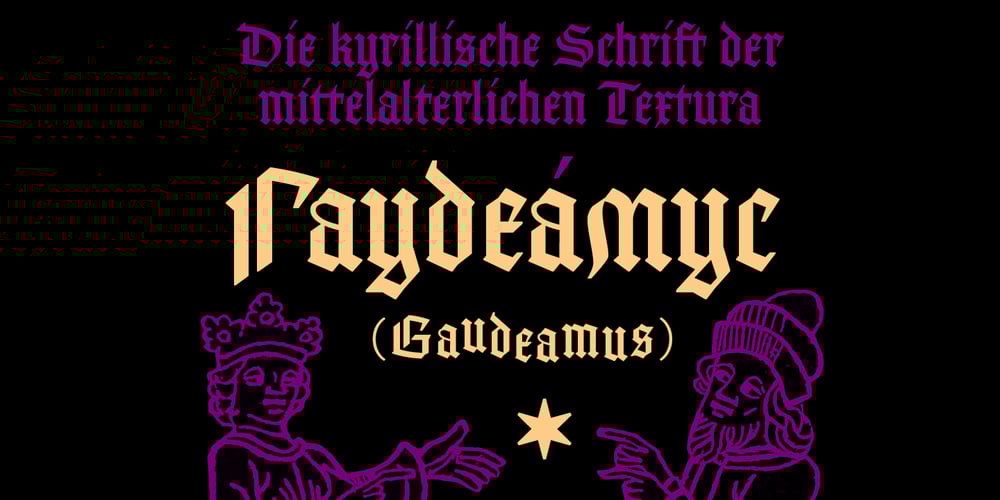
Gaudeamus Font Family was designed by Yan Snim and published by Znakomesto. Gaudeamus contains 1 styles and family package options. Gaudeamus is a Cyrillic face of medieval Gothic textura inspired of incunabulum artworks. Recommended for a historical and cultural context, but it goes well beyond. Suitable for music, books, fashion, catering, packaging and more. Works for long paragraphs and short sentences.Features:— 7 Stylistic sets; two of which are text preformats to the commons of the Middle Ages and Early Modern historical periods.— Sets of Ordinal and Superscript characters for French, Portuguese, Spanish typesetting.— Localized letterforms for Bulgarian and Serbian.— Localized diacritics for Polish and Romanian.— Support typesetting in Russian pre-reform orthography.— Support typesetting in Middle English orthography.— Case sensitive characters for greater consistency with uppercase letters.— Set of Roman Numerals. — Standard and Discretional ligatures.— 530 glyphs; 40 languages support.